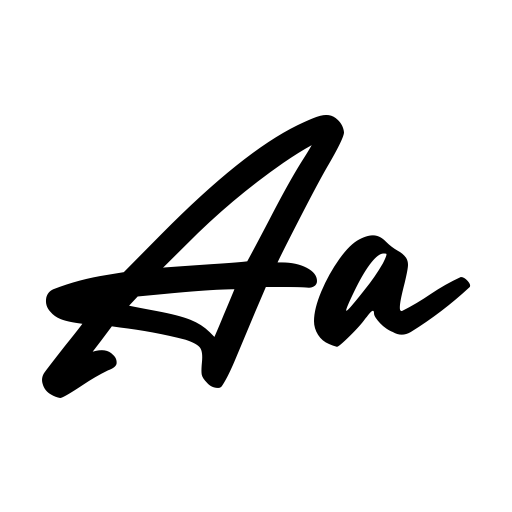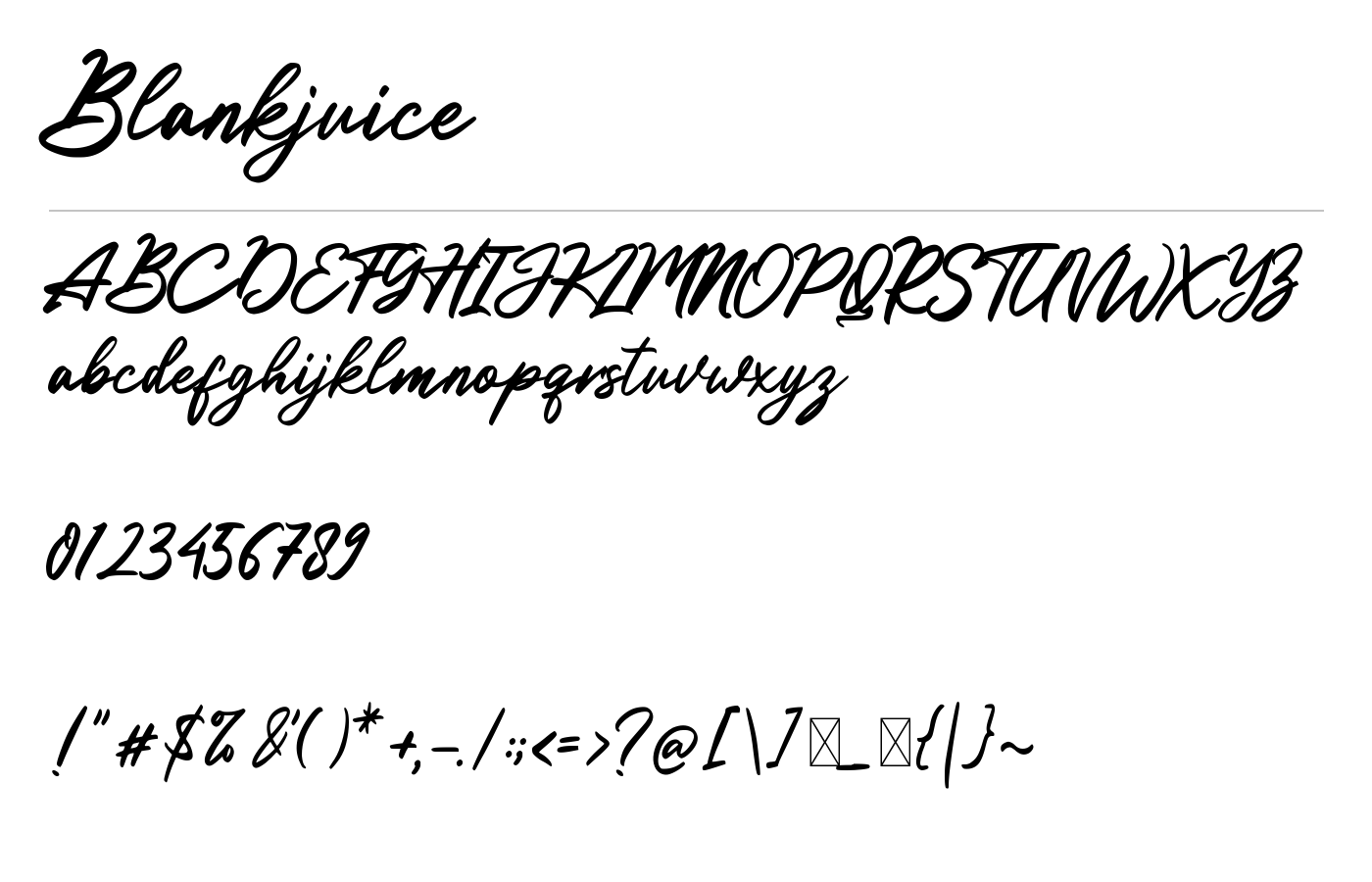
Blankjuice Font is a bold and lively script typeface with smooth, flowing strokes that give it a friendly and energetic feel. Its handwritten style, featuring clear letterforms and a consistent slant, makes it perfect for adding a personal, creative touch to branding, invitations, and headlines where a dynamic, informal vibe is desired.
Blankjuice Font
About Blankjuice Font
| Font family | Blankjuice Font |
| Designer | Ikrar Bey Khubaib |